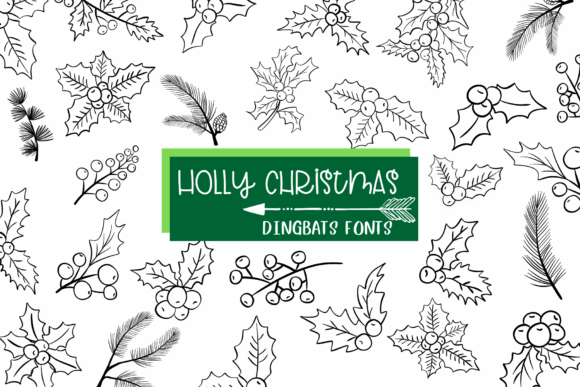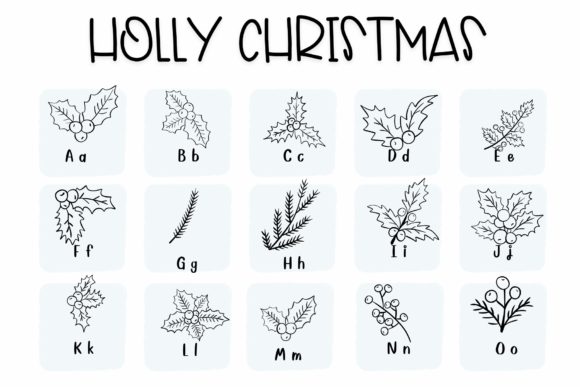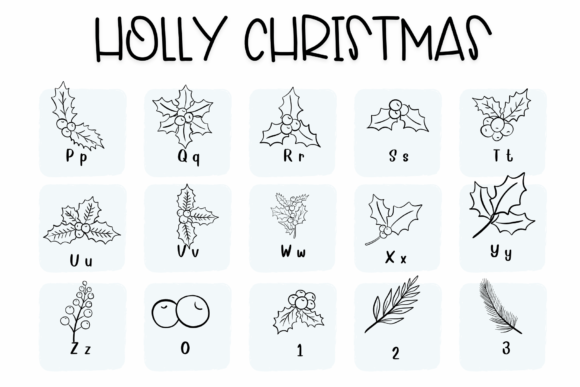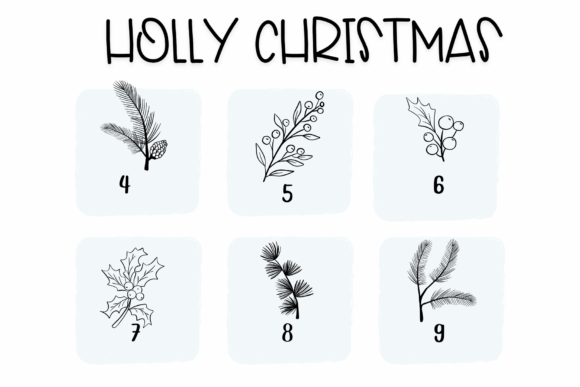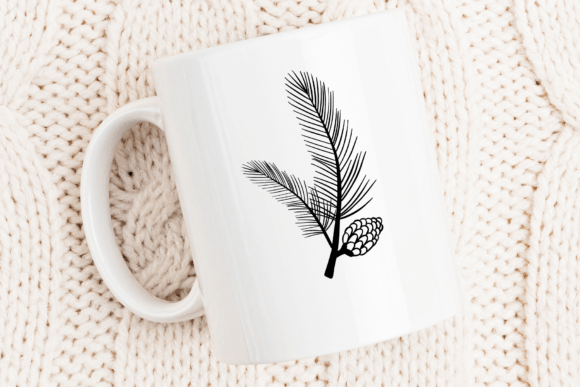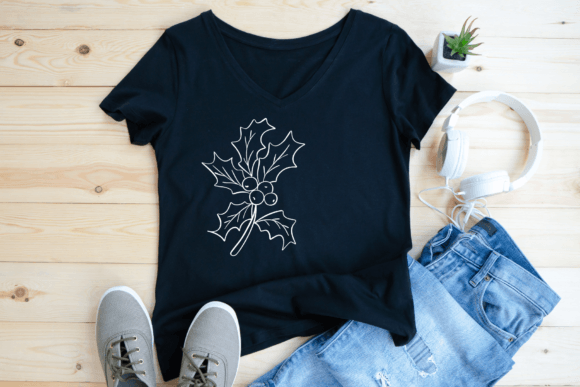
Holly Christmas Font
Holly Christmas is a dingbats font with theme with a sketch style. This font can enhance your creative projects such as wedding invitations, DIY, crafts, decorations, logos, and many other creative ideas.